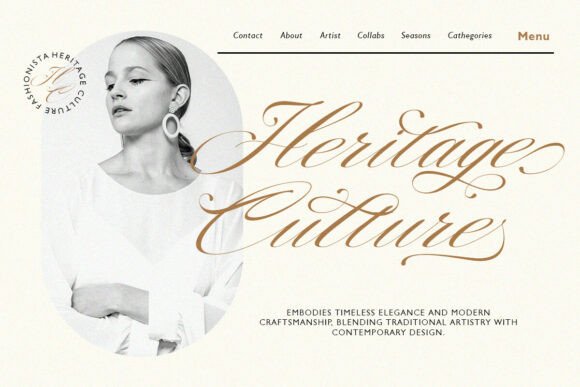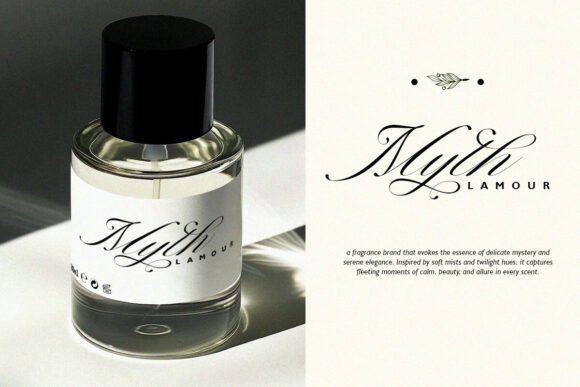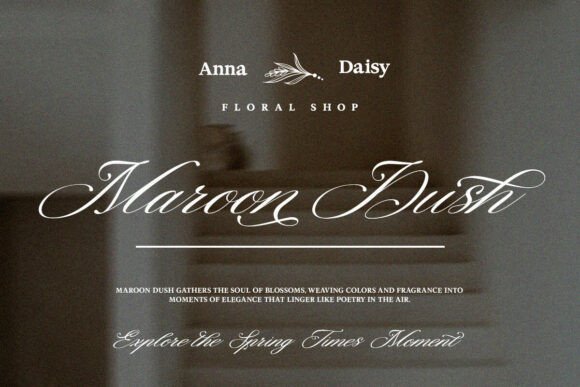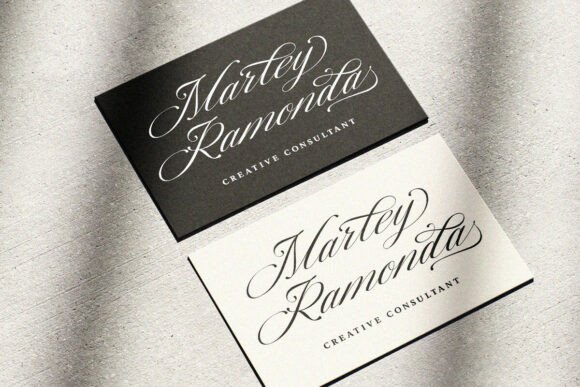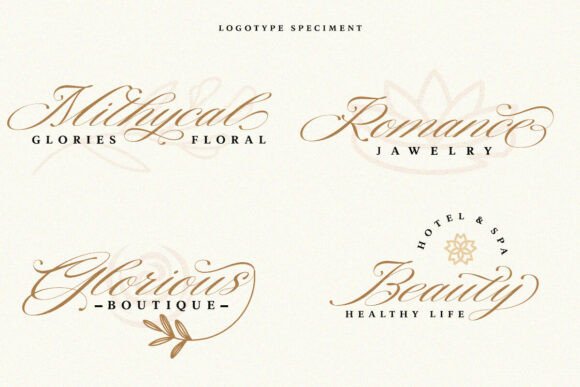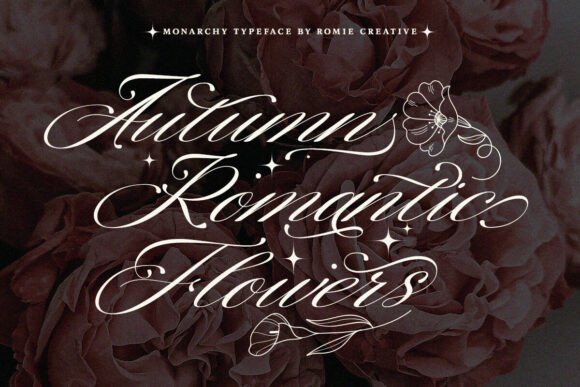
Unlocking the Elegance of Monarchy Script Font
Have you ever been in a creative flow, staring at a blank canvas, and suddenly an idea strikes you? You envision a beautiful, high-quality design that exudes sophistication and class. For designers, moments like these are a dream come true. A valuable design resource can make all the difference in bringing your vision to life. That’s where the Monarchy Script Font comes in – a timeless and sophisticated script font that elevates any creative project to new heights.
Perfect for adding a touch of elegance to brand identities, invitations, product labels, and more, the Monarchy Script Font is a game-changer for designers seeking a high-quality design element. With its integrated OpenType features and unique ligatures, this font offers incredible flexibility and creative freedom, making it an invaluable addition to any design toolkit.
Key Features of Monarchy Script Font
- Unique characteristics include a flowing, cursive script and ornate details, perfect for adding a touch of sophistication to any design.
Honest Review: Monarchy Script Font
I recently had the chance to work with the Monarchy Script Font for a creative project, and I must say, it’s been a game-changer. As a designer, I’m always on the lookout for high-quality design resources that can elevate my work. This font definitely fits the bill.
Here’s what works well: ✨ The Monarchy Script Font has a beautiful, elegant feel that’s perfect for any project that requires a touch of sophistication. The font is highly customizable, making it easy to adjust to your specific design needs. Plus, it’s available for free download, which is always a bonus!
- Perfect for creative projects that require a touch of elegance
As with any font, there are some limitations to consider: ⚠️ The Monarchy Script Font doesn’t come with a transparent background, which can be a bit limiting for designers who like to get creative with their backgrounds. Additionally, the font can be a bit tricky to read in certain font sizes.
Overall, I’m really impressed with the Monarchy Script Font. It’s a great addition to any designer’s toolkit, and I highly recommend it for anyone looking for a high-quality, elegant font for their creative project.
Introduction to Monarchy Script Font
Monarchy Script Font is a high-quality, elegant design resource ideal for creative projects requiring a touch of sophistication. This beautiful script font is available for free download, making it an excellent choice for designers looking for a versatile and stylish font.
Tips for Getting the Most Out of Monarchy Script Font
To get the most out of Monarchy Script Font, use it in combination with other elegant design elements, such as cursive lines and floral patterns. Experiment with different font sizes and colors to achieve a unique look.
Common Use Cases for Monarchy Script Font
Monarchy Script Font is commonly used in wedding invitations, baby shower invitations, and other special occasion designs. It’s also a popular choice for branding and marketing materials, such as logos and business cards.